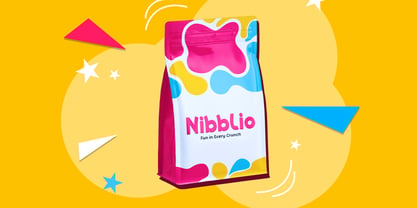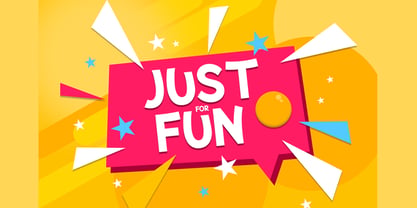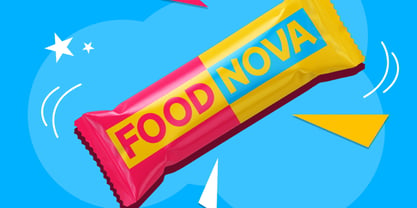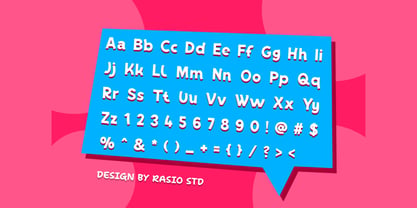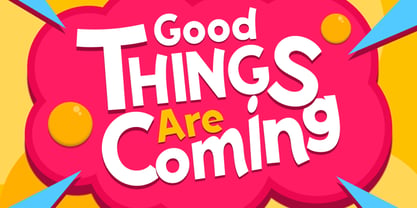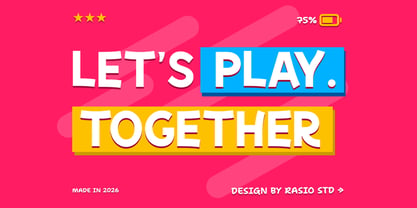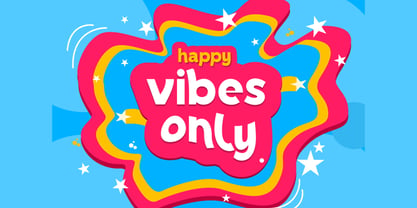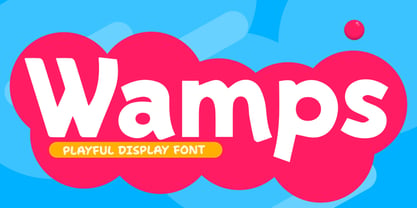
Wamps
Wamps is a bold, playful display font designed to bring fun, energy, and personality into your creative projects. Featuring chunky letterforms, soft rounded edges, and expressive proportions, Wamps creates an instant cheerful and friendly impression. Wamps is highly suitable for children brands, toy packaging, snack labels, birthday invitations, school materials, YouTube thumbnails, social media content, event posters, merchandise design, and playful branding projects.